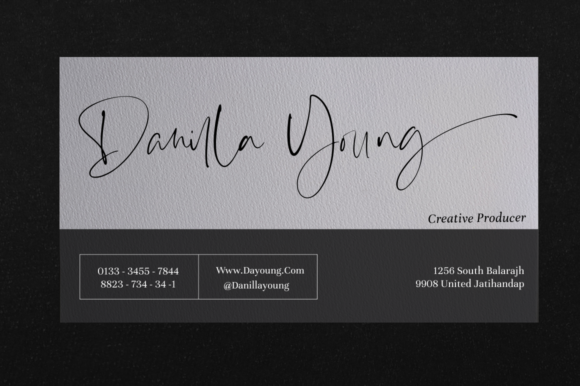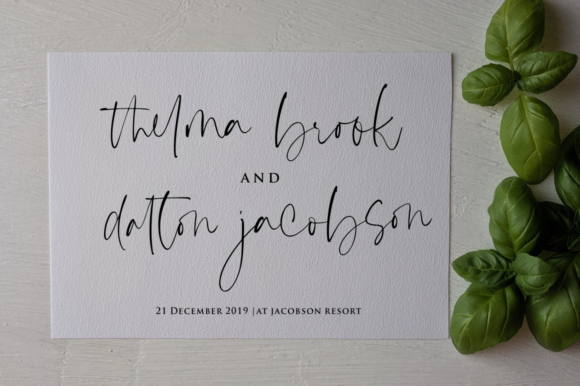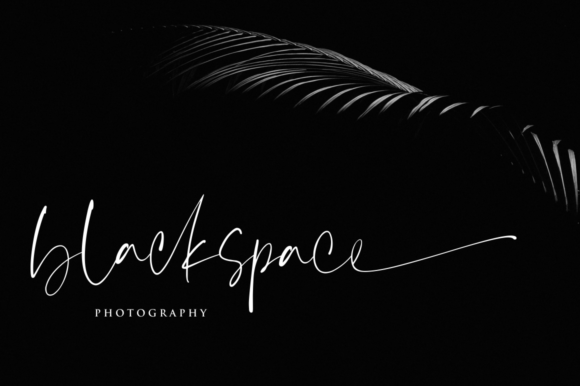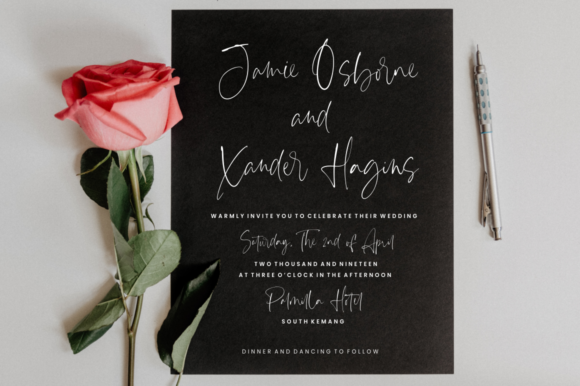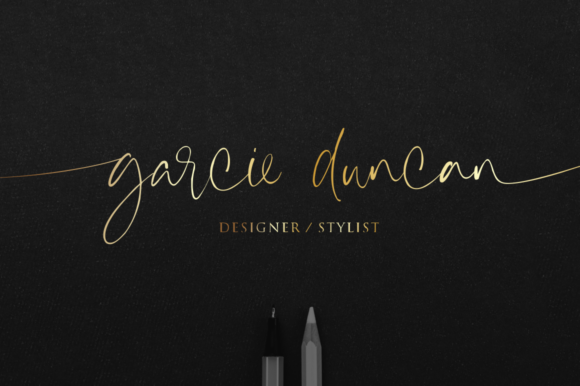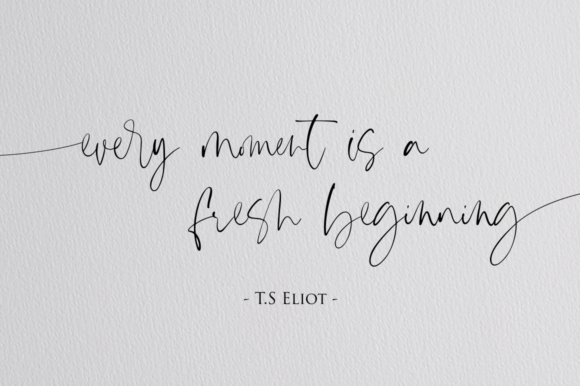
The Perfect Script Font for Your Next Creative Project
Have you ever been stuck trying to find the perfect font for a design project, only to end up scrolling through page after page of bland, generic options? I know I have. It’s those moments of frustration that make the discovery of a truly unique font all the more thrilling. For me, that moment came when I stumbled upon the Bintaro Font – a stunning script font that adds a touch of elegance to any design.
Bintaro Font is the perfect choice for designers looking to add a handwritten touch to their projects. Whether you’re creating a wedding invitation, a thank you card, or a logo, this font is sure to impress. Its versatility and sophistication make it a valuable asset for any designer’s toolkit.
With Bintaro Font, the possibilities are endless, and the results are always stunning. Its unique blend of style and elegance makes it a must-have for any designer looking to take their work to the next level.
Bintaro Font Key Features
- Unique Characteristics: The font features a unique blend of modern and traditional elements, with distinctive letterforms and a sophisticated aesthetic.
Bintaro Font Review
I recently had the chance to work with the Bintaro Font, and I must say it’s an interesting choice for designers. Here’s my honest review.
- The Bintaro Font has a unique, hand-drawn feel that can add a touch of personality to designs.
- The font is highly customizable, with a wide range of weights and styles to choose from.
- It’s particularly well-suited for projects that require a more casual, friendly tone.
- The font may not be suitable for projects that require a more formal or professional tone.
- Some of the weights and styles can appear slightly inconsistent, which may affect readability.
- The font may not be as versatile as some other fonts on the market.
While the Bintaro Font has its strengths, it’s not a one-size-fits-all solution. If you’re looking for a unique, hand-drawn feel for a specific project, it may be worth considering. However, for more general design needs, you may want to explore other options.
Tips for Getting the Most Out of Bintaro Font
For best results, use Bintaro font in conjunction with high-contrast colors and clean design elements. Experiment with different font sizes and styles to create a visually appealing and balanced design.
Common Use Cases for Bintaro Font
Bintaro font is ideal for use in modern branding, logos, and typography-based designs. It’s also suitable for use in digital products, such as mobile apps and websites, where a clean and modern aesthetic is desired.